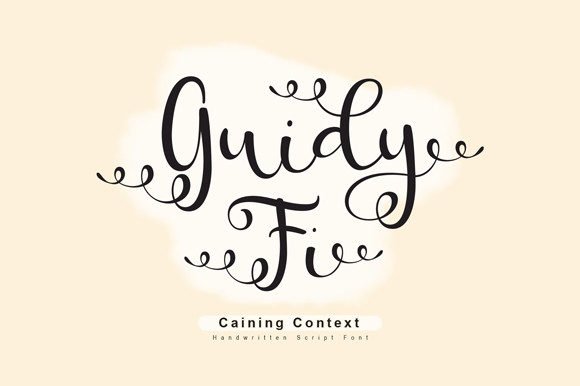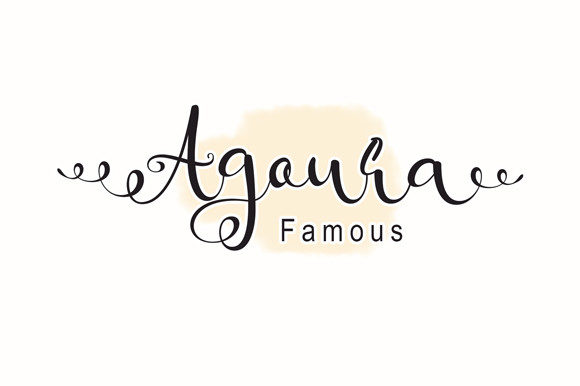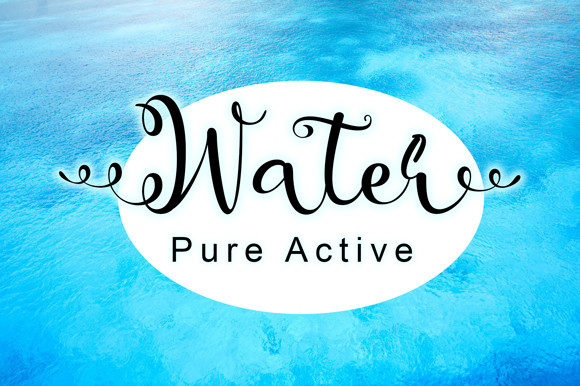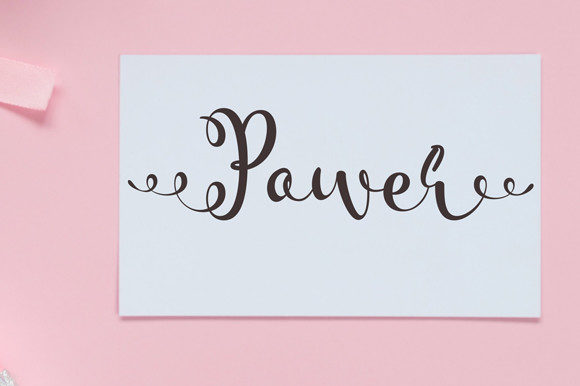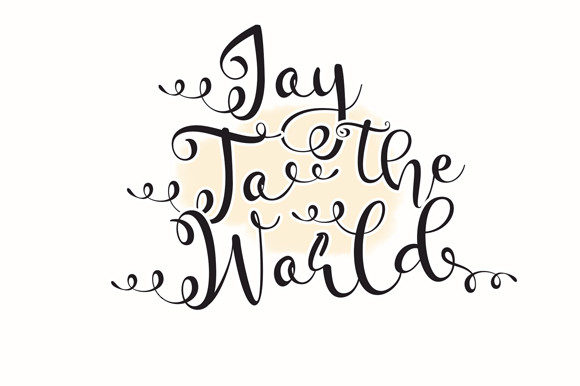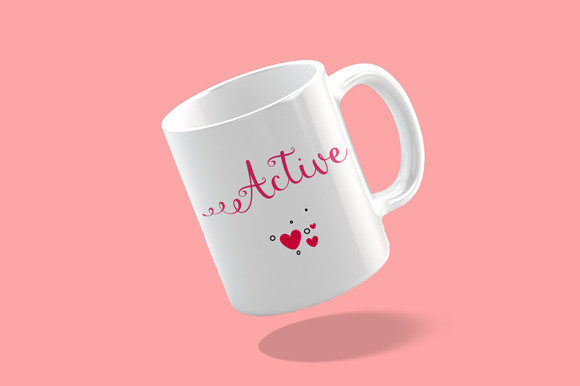
Have you ever stared at a blank canvas, waiting for the perfect spark to ignite your imagination? That’s exactly what happened to me when I first laid eyes on the Guidy Fi Font. Its elegant script style and intricate details had me hooked, and I knew I had to dive deeper into its world.
Guidy Fi Font is a beautifully crafted script font, designed to elevate your creations and make them truly special. Whether you’re a graphic designer, a writer, or a digital artist, this font has the potential to become your new go-to companion. With its PUA encoding, you’ll have access to a wide range of glyphs and swashes, giving you the freedom to express yourself in endless ways.
For designers, Guidy Fi Font is a valuable asset that can add a touch of sophistication and elegance to any project. Its versatility and detail make it perfect for creating eye-catching headlines, stylish typography, and even intricate illustrations. So why settle for ordinary when you can have extraordinary with the Guidy Fi Font?
Guidy Fi Font Key Features
- Unique Characteristics: Guidy Fi Font features a unique blend of modern and vintage elements, with intricate details and ornate flourishes that add a touch of elegance to any design.
- Style Variations: Guidy Fi Font comes in multiple styles, including regular, bold, italic, and bold italic, providing designers with flexibility and options for creating visually appealing designs.
- Scalability: The font is designed to be highly scalable, ensuring that it remains legible and visually appealing even at small sizes or when enlarged for emphasis.
Guidy Fi Font Review
Overall, I think the Guidy Fi Font has a lot of potential, but it’s not without its flaws. Let’s dive in and explore what works well and what doesn’t.
- The Guidy Fi Font has a unique, quirky aesthetic that sets it apart from other fonts. It’s perfect for adding a touch of personality to your designs.
- The font is highly customizable, with a wide range of weights and styles available. This makes it easy to find the perfect version to suit your needs.
- The Guidy Fi Font is highly legible, even at small font sizes. This makes it a great choice for body text or any situation where readability is crucial.
- The Guidy Fi Font can be a bit too ornate for some designs. If you’re going for a clean, minimalist look, this font might not be the best choice.
- The font is not ideal for headlines or titles, as the bold weights can be a bit too loud. You might need to adjust the font size or style to get the desired effect.
The Guidy Fi Font is a solid choice for designers who want to add a bit of whimsy to their projects. While it may not be the best fit for every design, it’s definitely worth considering for the right project. With a little experimentation and tweaking, I think this font has the potential to be a real showstopper.
Guidy Fi Font Practical Application Guide
In PowerPoint or Word, you can use Guidy Fi Font by selecting the “Home” tab and choosing the font from the font list. You can adjust the font size, color, and style to match your presentation or document. Guidy Fi Font is ideal for creating engaging presentations, reports, and marketing materials.
Tips for Getting the Most Out of Guidy Fi Font
Experiment with different font sizes and colors to create visual interest. Combine Guidy Fi Font with other fonts to create a unique and modern look. Use Guidy Fi Font for headings and titles to draw attention and create a sense of hierarchy.
Guidy Fi Font is perfect for creating modern and playful graphics, logos, and branding materials. It’s ideal for social media posts, infographics, advertisements, presentations, and marketing materials. Use Guidy Fi Font to add a touch of sophistication and creativity to your designs.